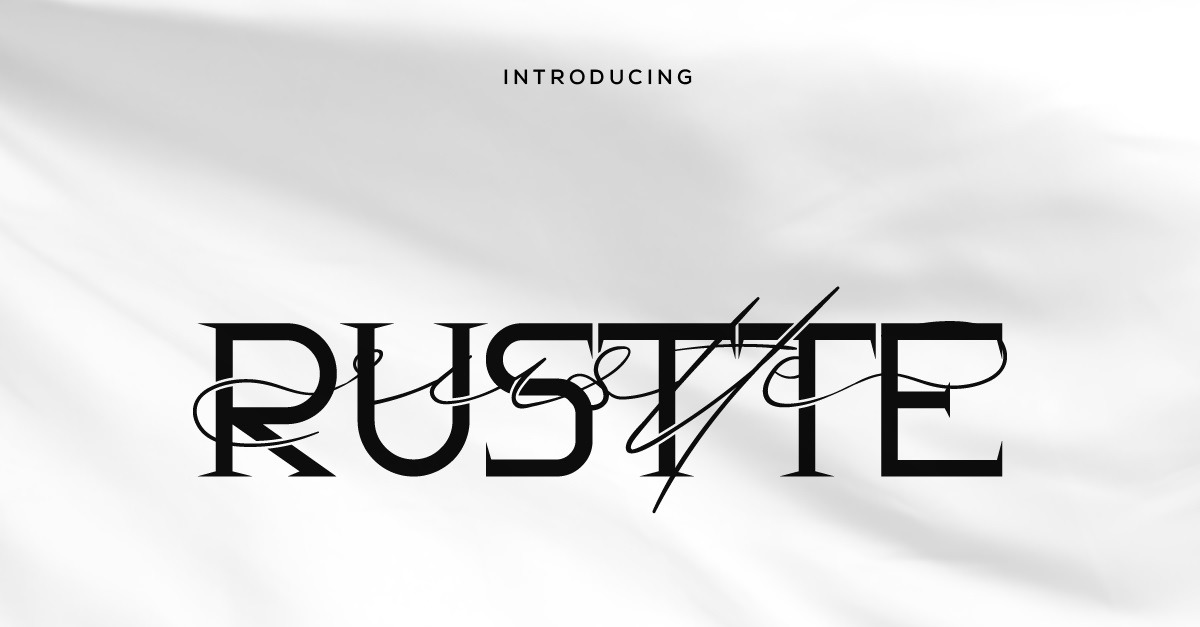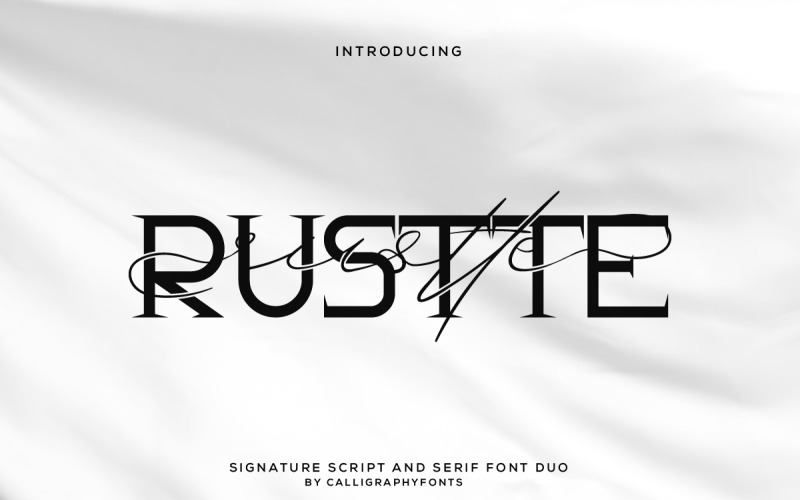
Rustte Font Two Different Font
Rustte Font is a Font Family with TWO different font styles : Serif display and Signature Script . The style of this font are minimalist, signature, modern, elegant, luxury, glamour, classic and simple lettering.